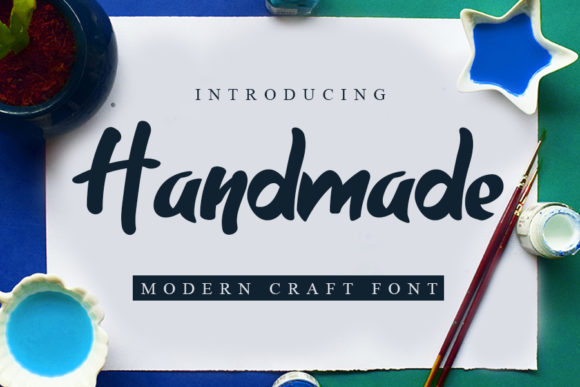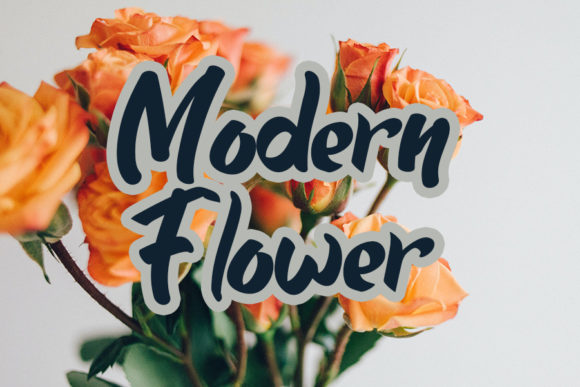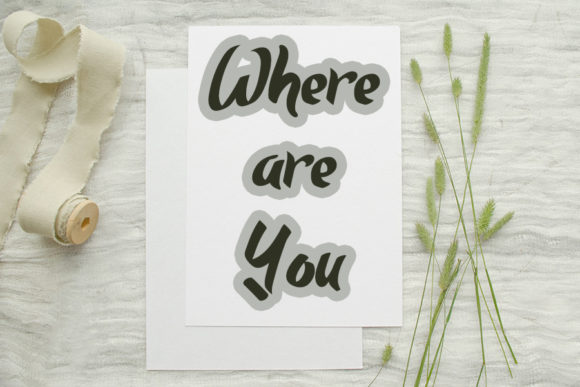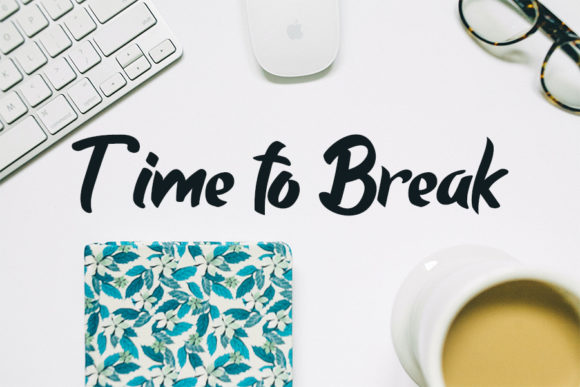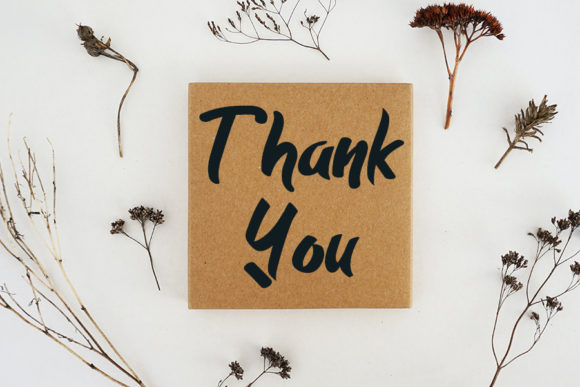
Handmade is a cute and casual handwritten font. It features cute ligatures that make this script incredibly versatile. Whether you’re looking for fonts for Instagram or calligraphy scripts for DIY projects, Handmade will turn any creative idea into a true piece of art! This font is PUA encoded which means you can access all of the cute glyphs and swashes with ease!